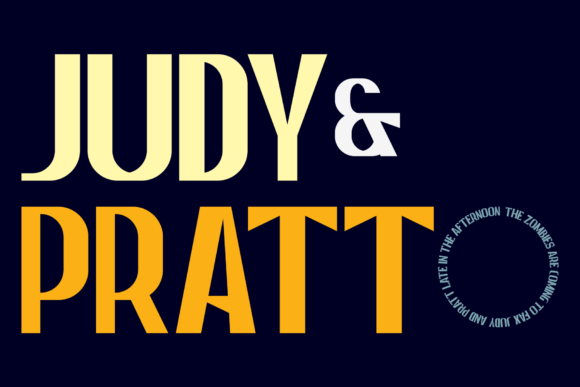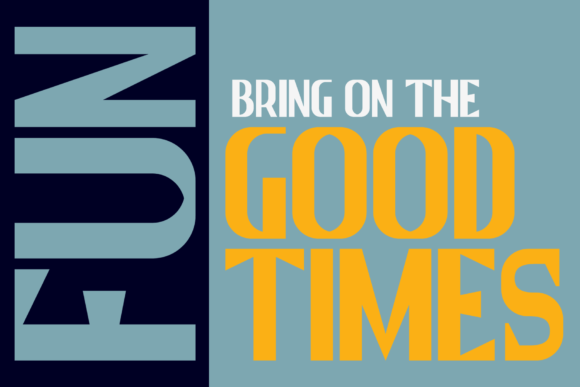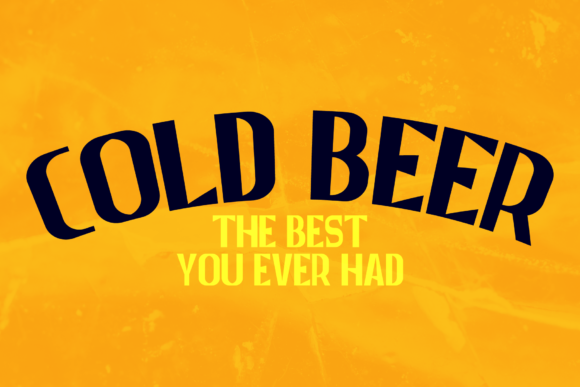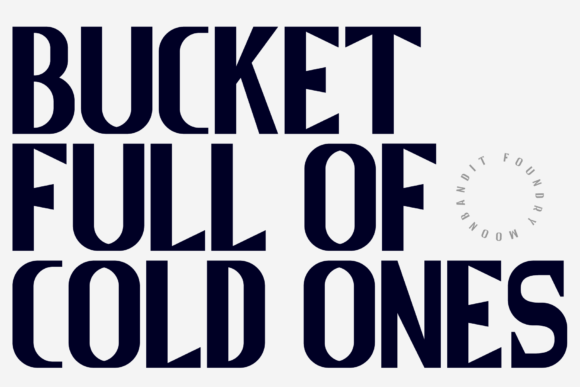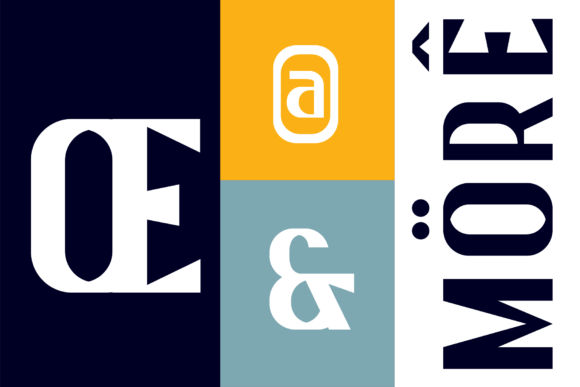
The Perfect Font for Making a Statement
Have you ever stared at a blank page, waiting for inspiration to strike? You know, that moment when everything clicks and your creative juices start flowing. For designers, it’s a feeling like no other – and it’s exactly what Ergo Font aims to evoke. This tall and bold sans serif font has a distinct vintage charm that’s perfect for logo designs, titles, display text, and headlines.
What sets Ergo Font apart is its unique ability to add a touch of sophistication and elegance to any design. Whether you’re working on a branding project or creating a website, Ergo Font is a valuable addition to your toolkit. Its versatility and timeless appeal make it a go-to choice for designers who want to make a lasting impression.
- Unique Characteristics: Ergo Font features a unique blend of modern and traditional design elements, with a focus on readability, consistency, and aesthetic appeal.
Ergo Font Review
As a designer, I was excited to dive into the Ergo Font, touted as a modern sans-serif font designed for optimal readability. ✨ Here are my thoughts:
- Clear and legible: The Ergo Font is indeed very easy to read, even at small font sizes.
- Customizable: It comes with a range of weights and styles, making it perfect for various design projects.
- Professional look: The font has a sleek, modern feel that’s perfect for corporate and business designs.
- Limited expressive range: The Ergo Font can feel a bit flat in terms of emotional expression, which may limit its use in creative or artistic projects.
- Lack of unique character: While the font is well-designed, it doesn’t particularly stand out from other sans-serif fonts on the market.
Overall impression:
While the Ergo Font is a solid choice for many design projects, it doesn’t blow me away. It’s a safe, reliable option that’s perfect for projects where readability is key, but it may not be the best choice for those looking to add some personality or flair to their design.
For optimal results, use Ergo Font in combination with clear typography and concise content. Use it for body text, headings, or even as a title font. It’s suitable for a wide range of designs, including brochures, presentations, and websites.
Ergo Font is ideal for:
– Body text in articles, blogs, and websites
– Headings and titles in presentations and reports
– Labels and captions in infographics and visualizations